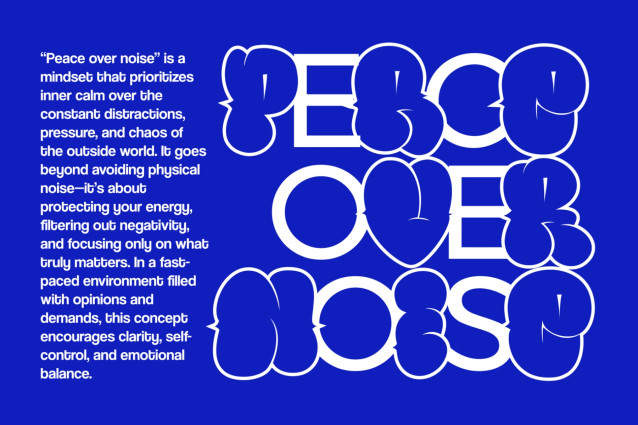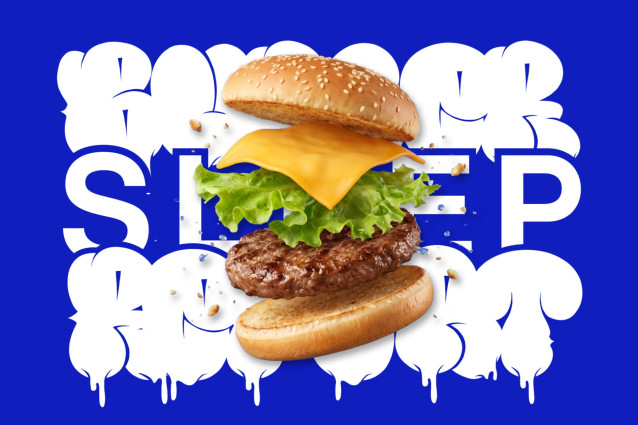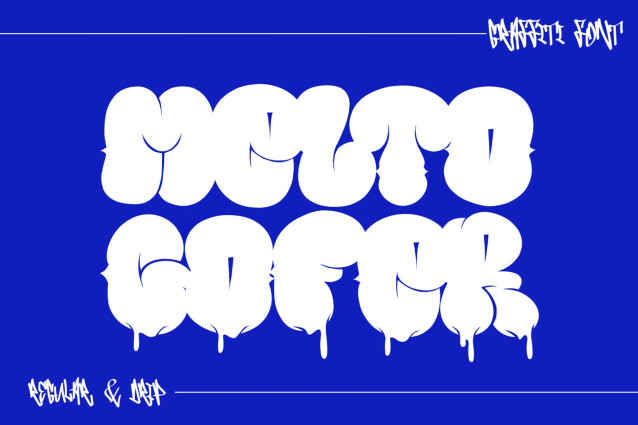
Melto Gofer – Bubble Graffiti Font
Melto Gofer – Bubble Graffiti Font is a bold and playful graffiti font inspired by classic throw-up lettering and bubble-style street art. Designed to capture the fast, expressive energy of urban tagging, this bubble graffiti font blends rounded shapes with dripping effects to create a dynamic and eye-catching visual style. Whether you’re working on streetwear branding, posters, or music artwork, Melto Gofer graffiti font brings a fresh and authentic street vibe to your designs.
This dripping graffiti font is perfect for designers who want to create fun yet edgy compositions. The combination of soft bubble forms and dripping details makes Melto Gofer a standout urban graffiti font that delivers both personality and impact.